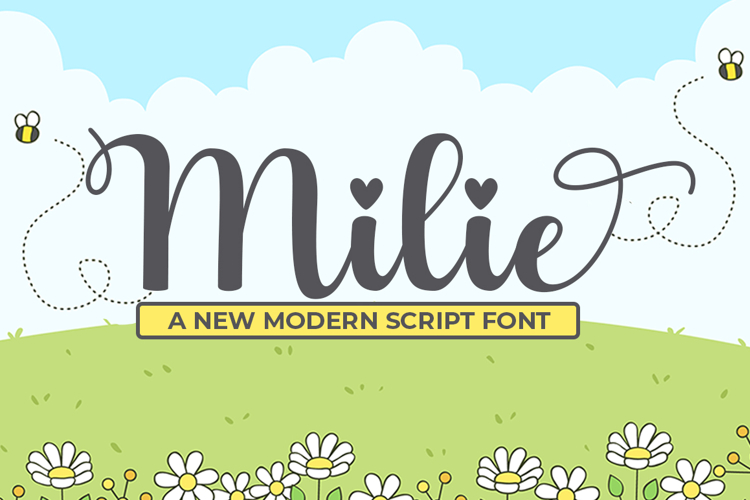
Milie is a modern script font that blends smooth handwritten elegance with a clean, contemporary flow. Designed with refined curves and balanced strokes, Milie brings a sense of softness and sophistication to every word. Perfect for branding, logos, social media, fashion typography, and expressive editorial designs, this font delivers a stylish handwritten touch while staying versatile and easy to read. Milie adds personality, charm, and a modern rhythm to any visual project.